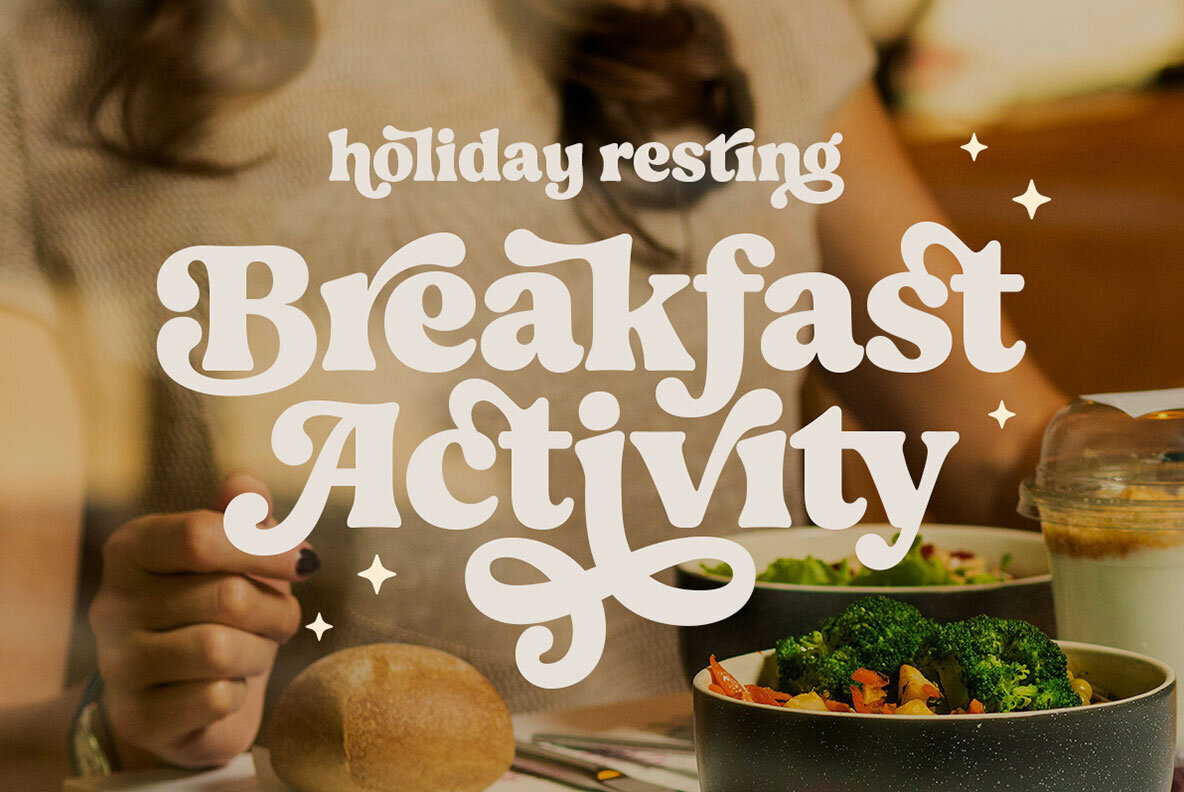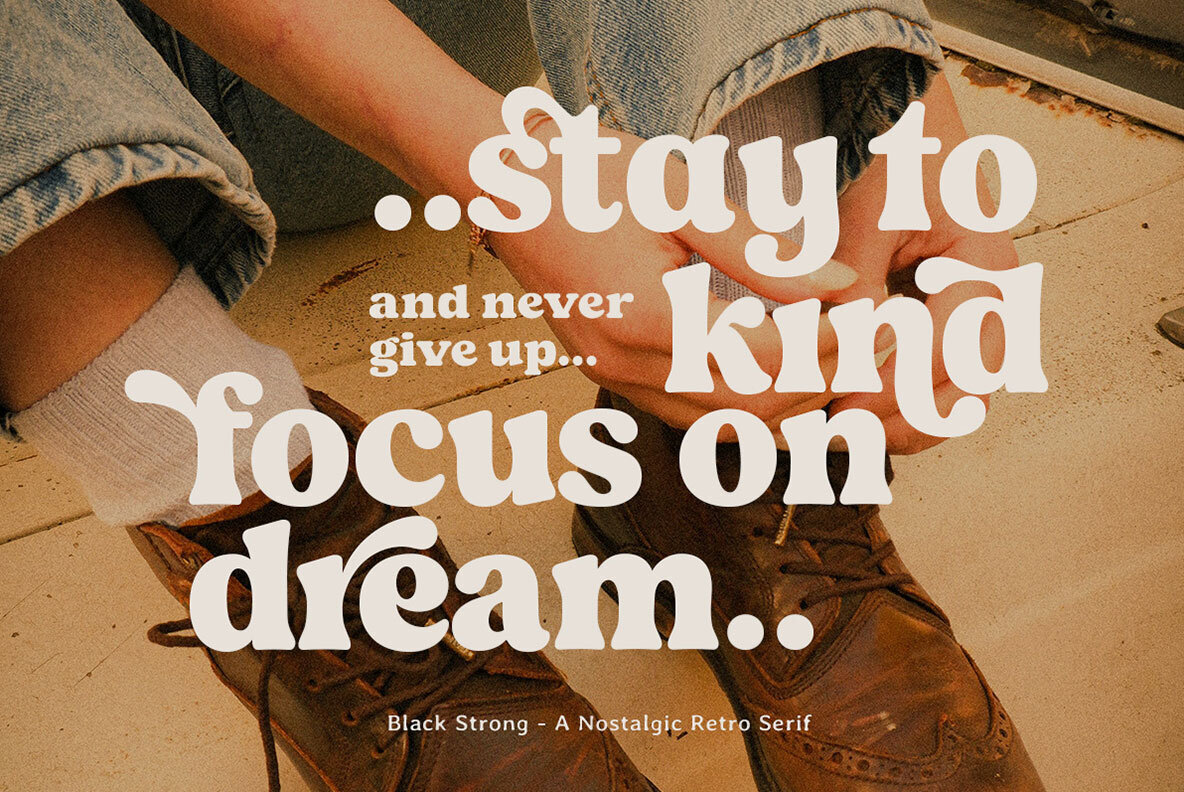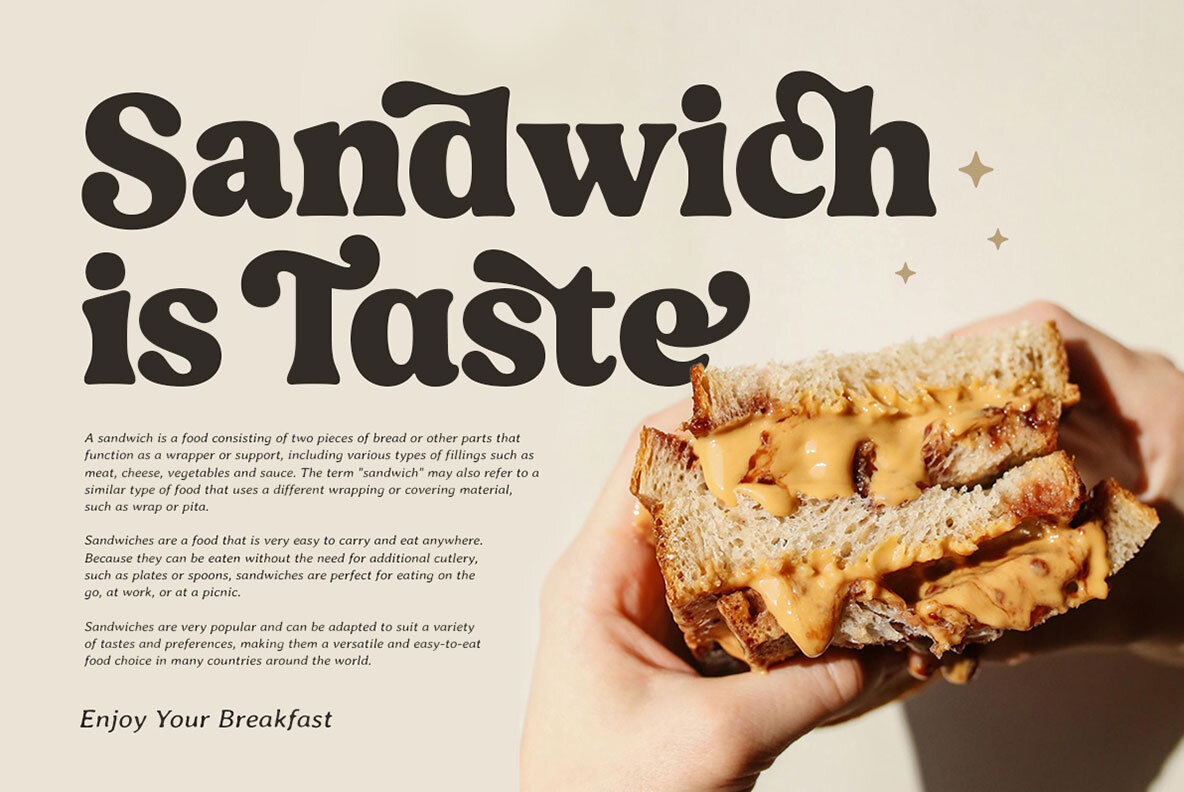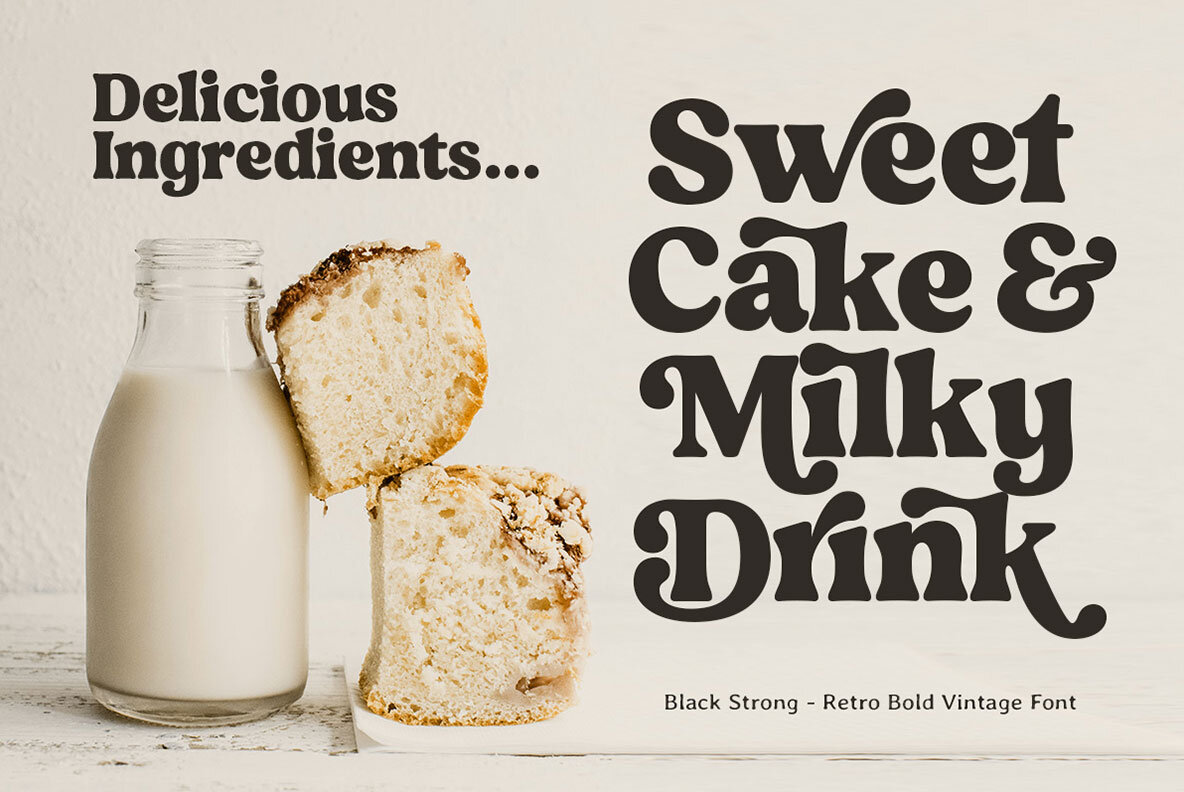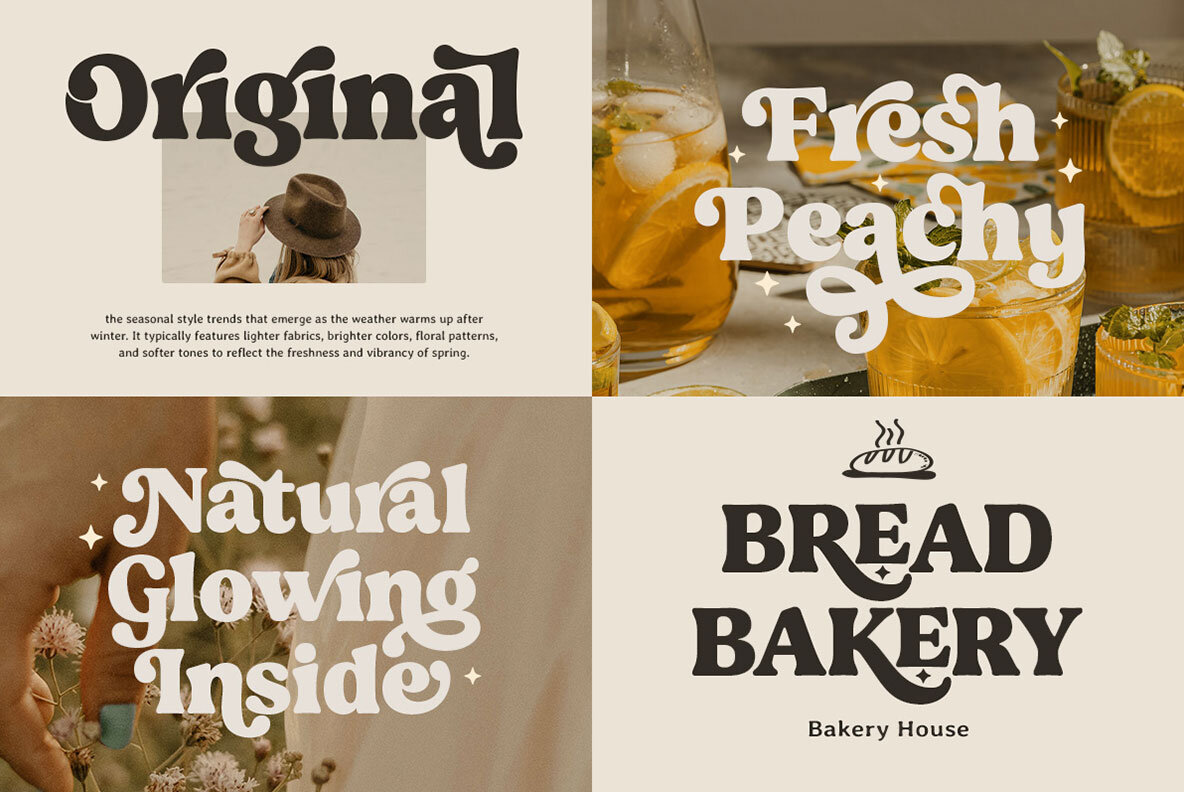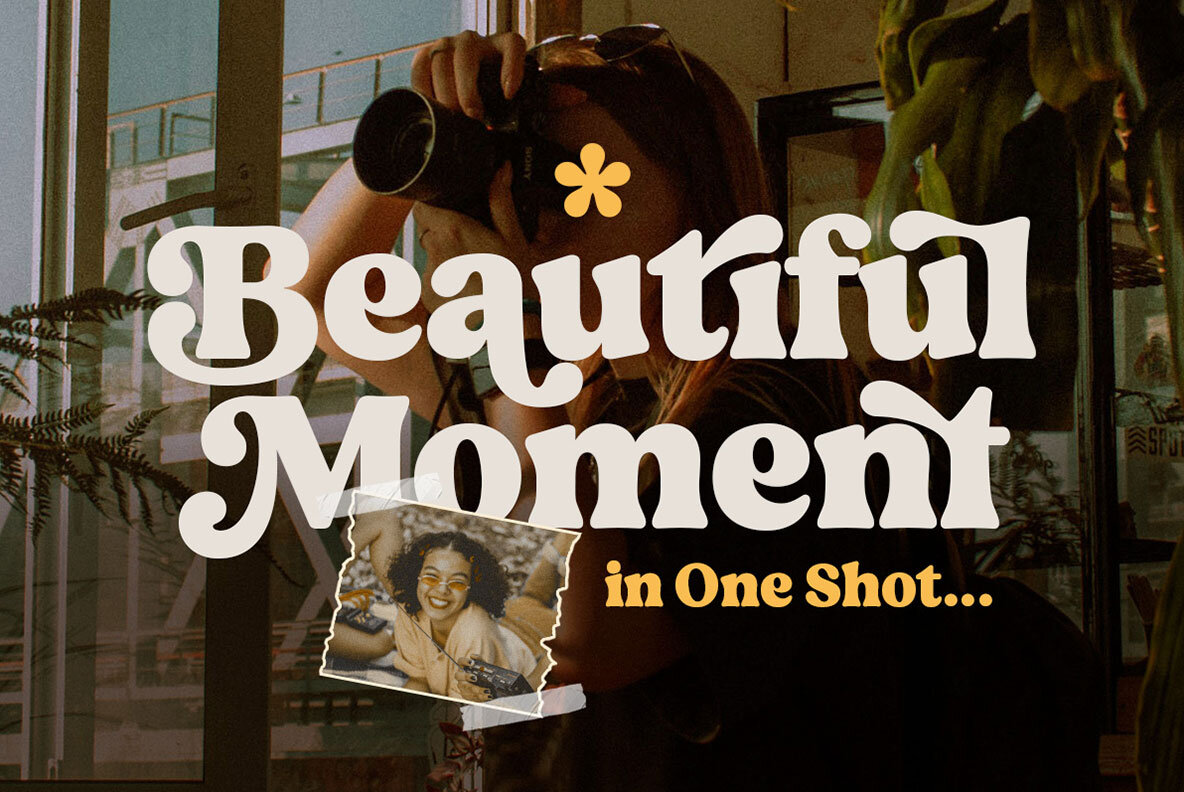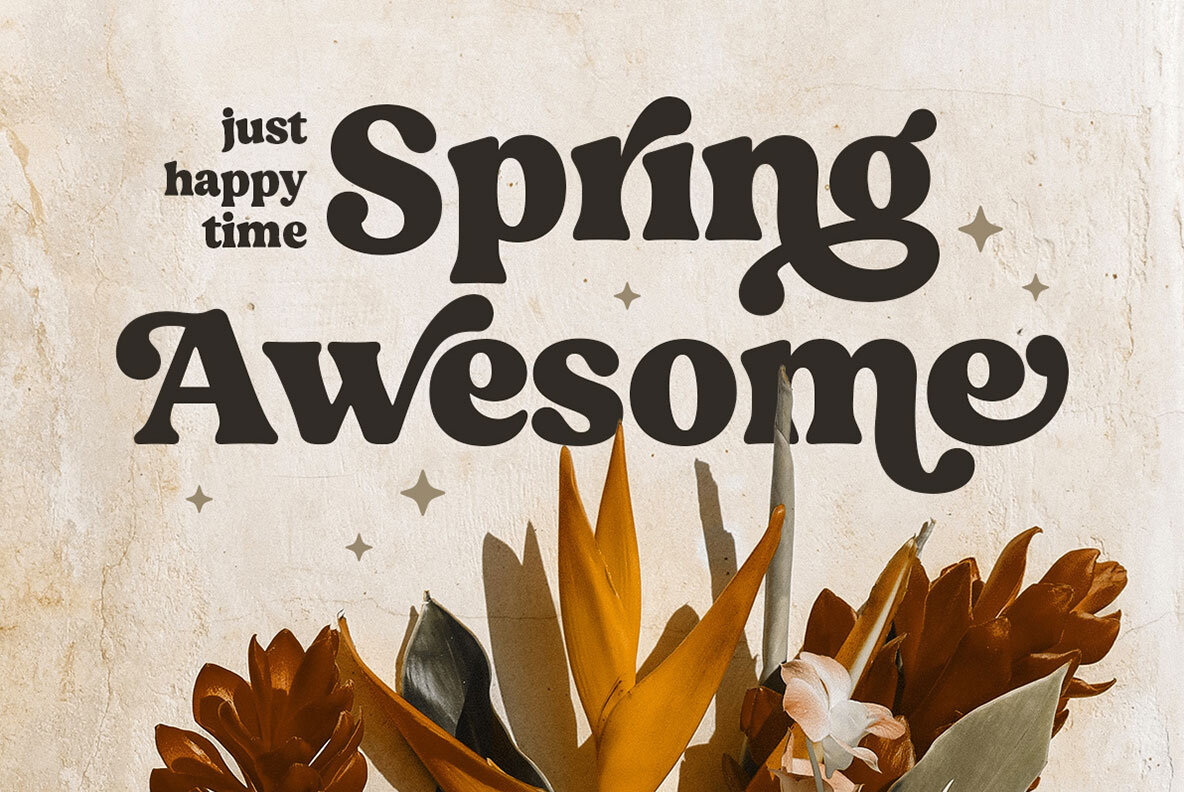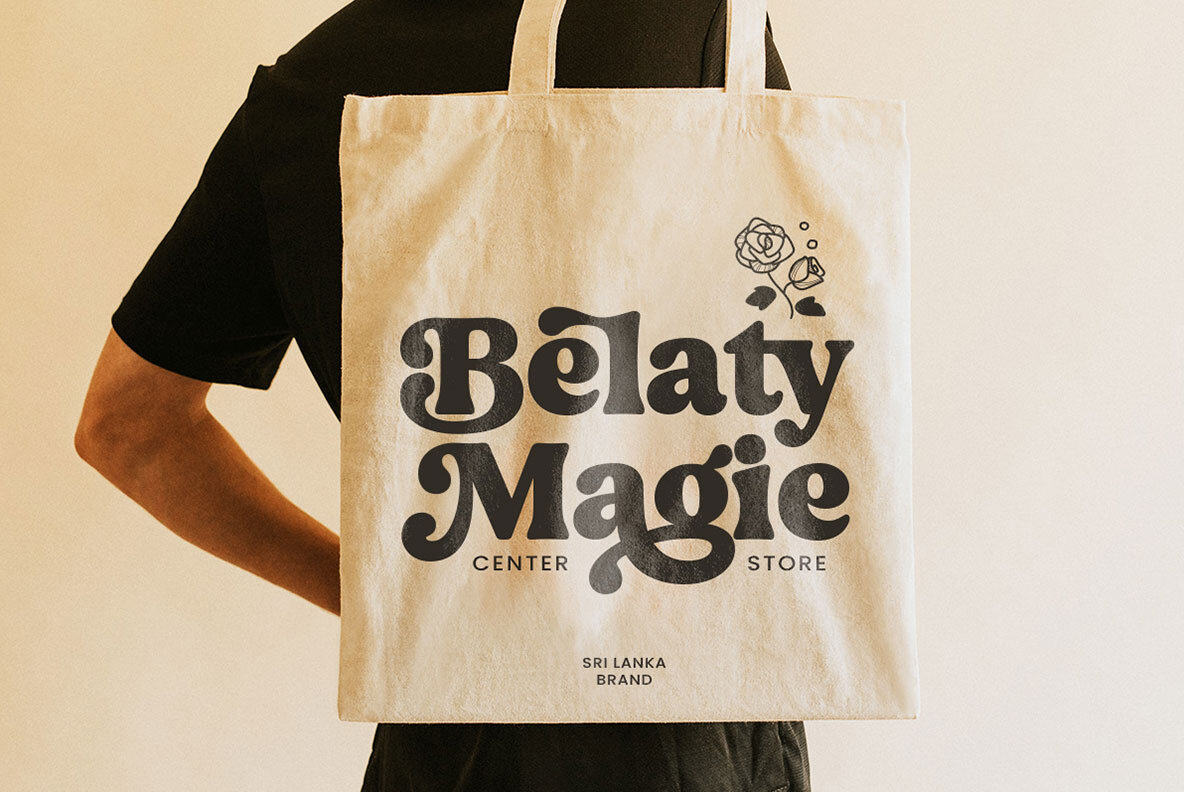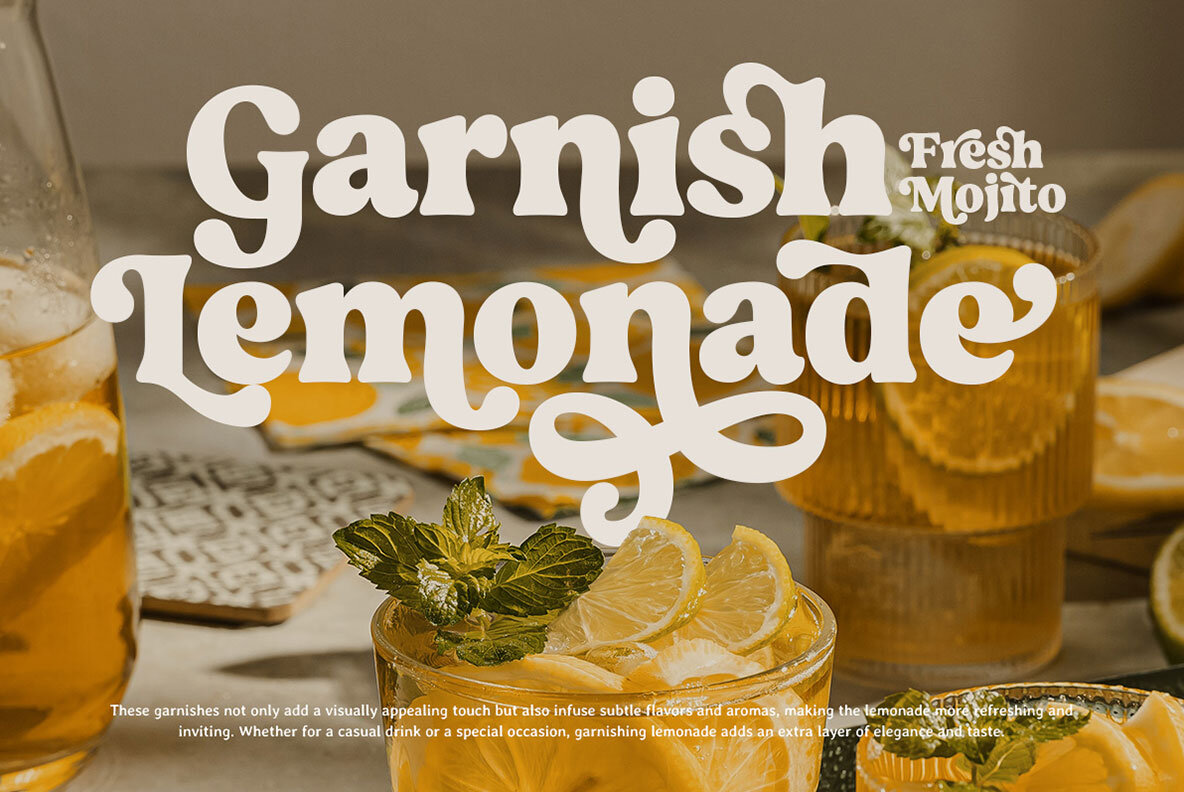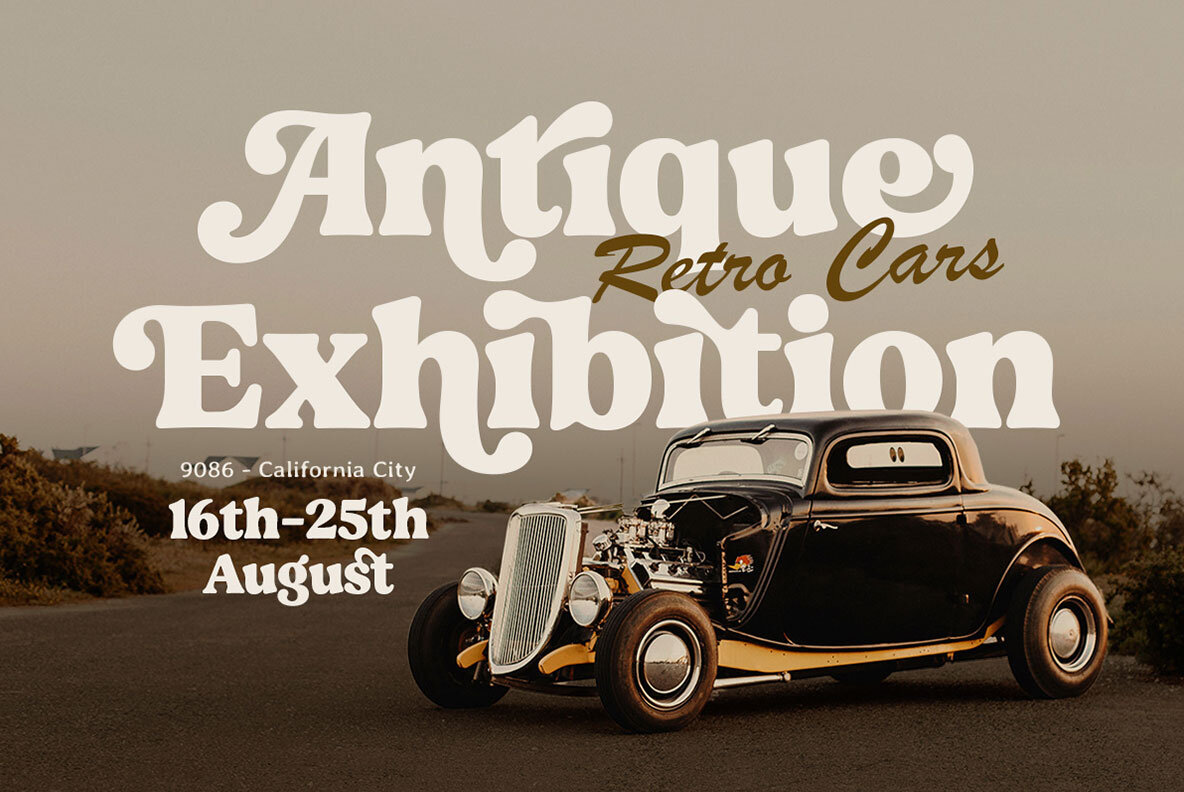
Black Strong Font
Black Strong Regular
Black Strong is a soft retro serif font packed with modern and classy style, complete with access to your OpenType features to access a large selection of alternative letters and ligatures, your preferred choice of uppercase and lowercase variations to achieve a retro and vintage look. Black Strong is perfect for branding projects, Logo design,Branding, packaging, magazine titles, advertisements, headline, postcards and much more. What you get: Multilingual character supports : (Afrikaans, Albanian, Catalan, Croatian, Czech, Danish, Dutch, English, Estonian, Finnish, French, German, Hungarian, Icelandic, Italian, Lithuanian, Maltese, Norwegian, Polish, Portuguese, Slovenian, Spanish, Swedish, Turkish, Zulu and More)